Harbor Type
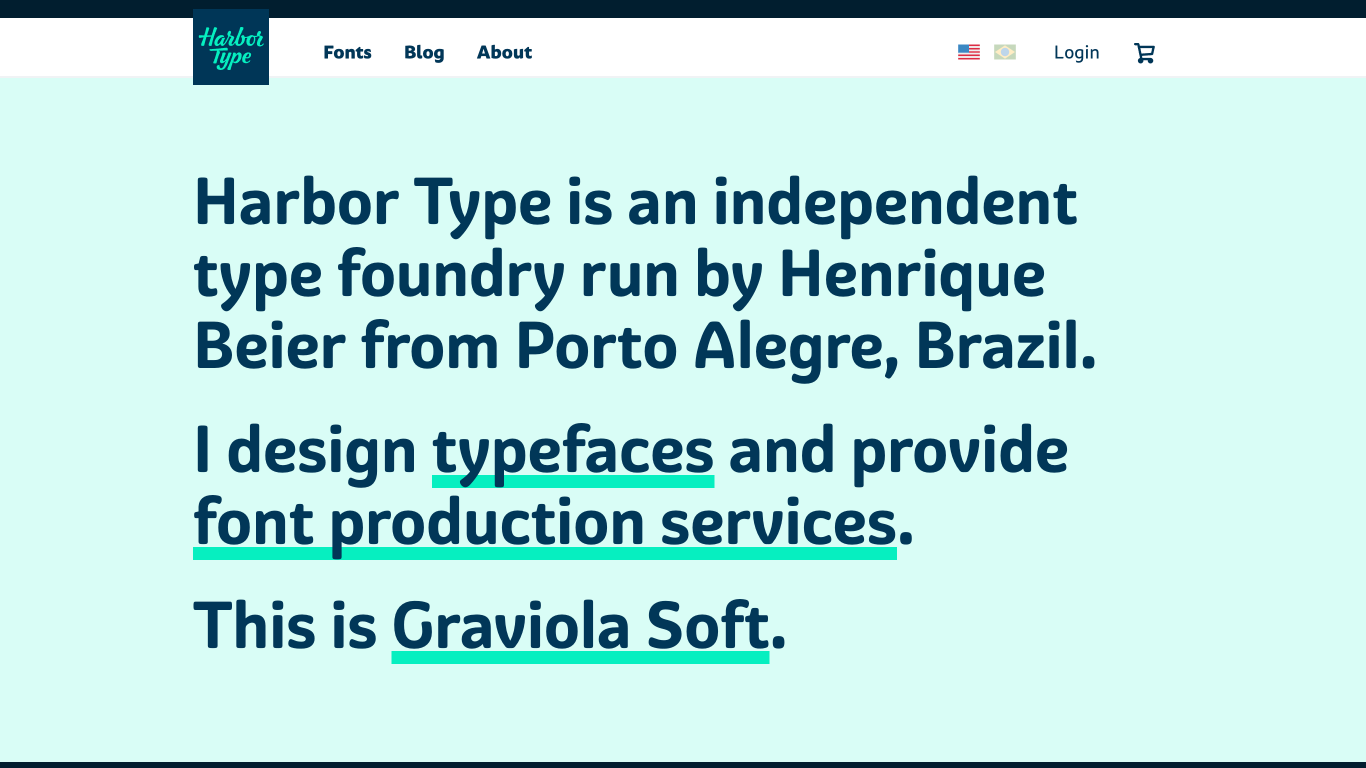
Brazil
2014
Harbor Type is an independent type foundry based in Porto Alegre, Brazil, founded in 2014 by Henrique Beier.The foundry specializes in developing both retail and custom typefaces, as well as offering font production services to other designers and foundries. Notable typefaces from Harbor Type include Densia Sans (a compact, efficient sans-serif), Garibaldi (a humanist-inspired text face), and Graviola (a soft, friendly family with semi-rounded terminals). Harbor Type's work has been recognized in multiple editions of the Tipos Latinos Biennial and the Brazilian Graphic Design Biennial.